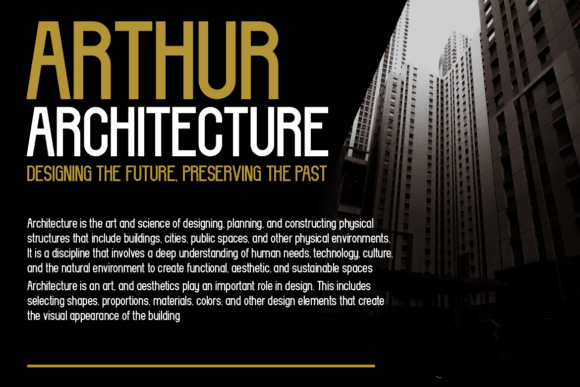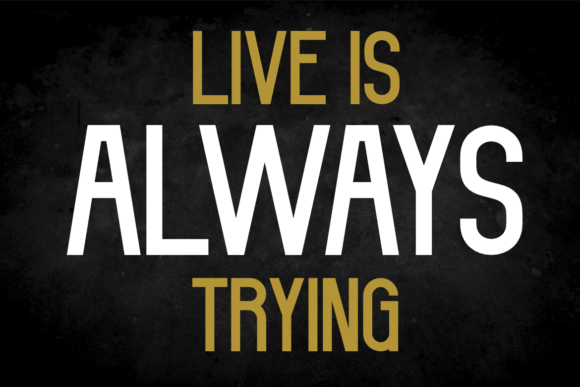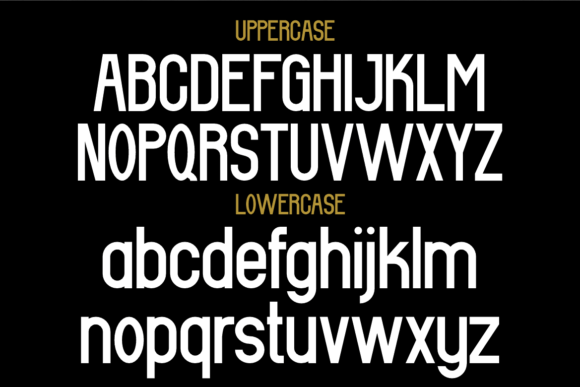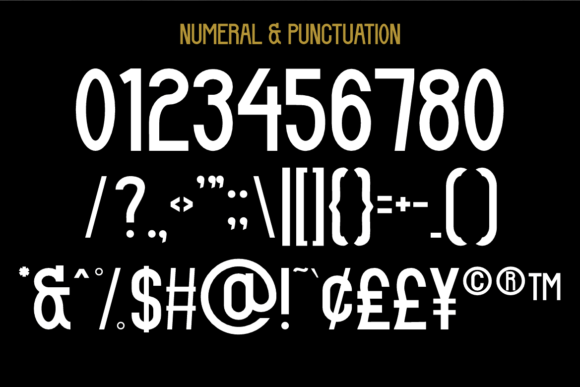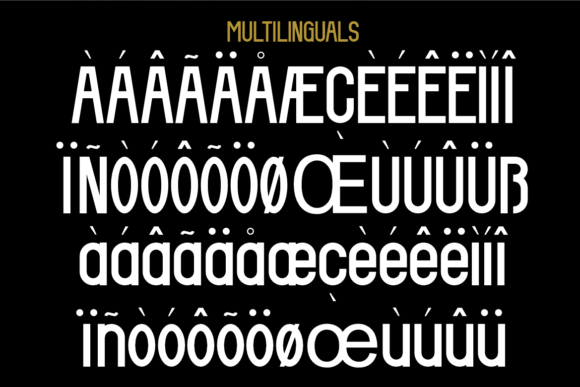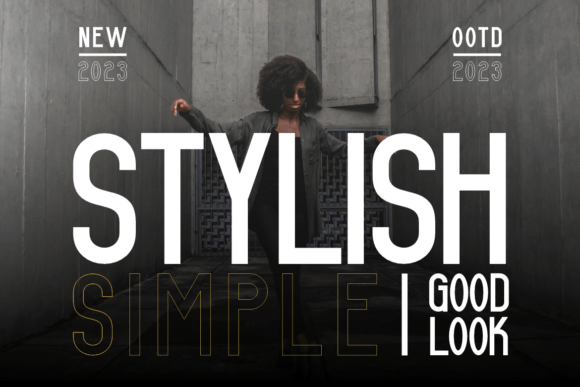
Discover the Power of Arthurok Font: A Comprehensive Guide
Are you a designer or crafter looking for a font that can elevate your graphic designs, print materials, and other media? Look no further than the Arthurok Font. This font is a type of condensed font, characterized by narrower or slimmer letterforms compared to regular or wide fonts. In this article, we’ll explore the distinct advantages and unique characteristics of condensed fonts like Arthurok, and how they can benefit your design projects.
What are Condensed Fonts?
Condensed fonts, like Arthurok, are designed to be narrower and more compact than regular fonts. This means that the letterforms are slimmer and more tightly spaced, making them ideal for use in designs where space is limited. Condensed fonts are often used in headlines, titles, and other applications where a bold and impactful look is desired.
Advantages of Condensed Fonts
So, why choose a condensed font like Arthurok for your design projects? Here are just a few of the advantages of using condensed fonts:
- Space-saving: Condensed fonts are perfect for use in designs where space is limited, such as in headlines, titles, and captions.
- Bold and impactful: The narrow letterforms of condensed fonts create a bold and impactful look that’s perfect for making a statement.
- Improved readability: Condensed fonts can be easier to read in certain contexts, such as in tables, charts, and other graphics where space is limited.
- Unique aesthetic: Condensed fonts have a unique and distinctive aesthetic that’s perfect for creating designs that stand out from the crowd.
Characteristics of Arthurok Font
So, what sets Arthurok Font apart from other condensed fonts? Here are a few of its key characteristics:
- Narrow letterforms: Arthurok Font features narrow and compact letterforms that are perfect for use in headlines, titles, and other applications.
- Clean and modern design: Arthurok Font has a clean and modern design that’s perfect for creating designs that are sleek and sophisticated.
- High legibility: Despite its condensed design, Arthurok Font is highly legible, even at small sizes.
- Versatile: Arthurok Font is a versatile font that can be used in a wide range of design applications, from print materials to digital media.
Using Arthurok Font in Your Designs
So, how can you use Arthurok Font in your designs? Here are a few ideas to get you started:
- Headlines and titles: Use Arthurok Font to create bold and impactful headlines and titles that grab attention.
- Print materials: Use Arthurok Font in print materials such as brochures, flyers, and posters to create a sleek and sophisticated look.
- Digital media: Use Arthurok Font in digital media such as websites, social media graphics, and email marketing campaigns to create a bold and modern look.
- Graphic designs: Use Arthurok Font in graphic designs such as logos, icons, and infographics to add a touch of elegance and sophistication.
In conclusion, Arthurok Font is a powerful and versatile condensed font that’s perfect for designers and crafters looking to elevate their graphic designs, print materials, and other media. With its narrow letterforms, clean and modern design, and high legibility, Arthurok Font is a great choice for a wide range of design applications. Whether you’re looking to create bold and impactful headlines, sleek and sophisticated print materials, or modern and elegant graphic designs, Arthurok Font is a great choice.